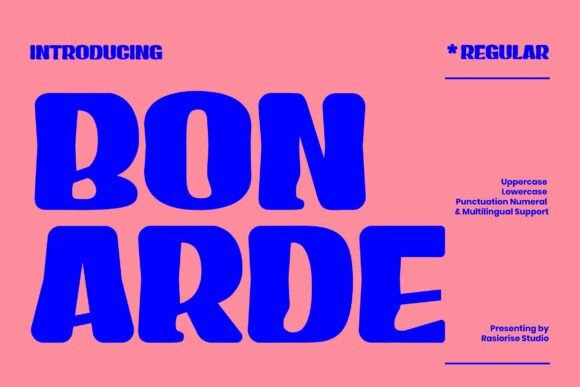
The Ultimate Display Font: A Deep Dive into Bonarde
I still remember the design project that led me to discover Bonarde Font. I was working on a vibrant poster for a music festival, and I needed a font that would grab attention and scream fun. After hours of browsing through font libraries, I stumbled upon Bonarde, and it instantly clicked. Its ultra-chunky, playful letterforms filled the space aggressively, making it perfect for high-impact headlines. In this article, I’ll share my experience with Bonarde Font, its features, and how to make the most of it in your designs.
Bonarde Font: A First Impression
Bonarde is an extremely bold, ultra-chunky display sans-serif font with a strong, playful, and graphic presence. Its massive, rounded letterforms fill space aggressively, making it ideal for vibrant posters, contemporary logos, apparel design, and any project that requires a fun, loud, and unforgettable visual statement.
What I Love About Bonarde Font
• ✨ Extremely bold and chunky: Perfect for high-impact headlines and branding.
• ✅ Multilingual support: Suitable for global projects and audiences.
• 🎉 Uppercase, lowercase, punctuation, numerals: Comprehensive character set for versatile designs.
• 🔥 Playful and graphic presence: Adds a fun and energetic vibe to any project.
Honest Review: Small Quirks and Limitations
While Bonarde Font is an excellent choice for display purposes, there are a few things to consider:
• ⚠️ Legibility at small sizes: Due to its ultra-chunky design, Bonarde may not be suitable for body text or small font sizes.
• 🤔 Limited use cases: This font is best used for headlines, titles, or emphasis, rather than extensive text.
The Story Behind Bonarde Font
Bonarde Font was designed with the intention of creating a bold, playful, and graphic display font. Its designer aimed to craft a typeface that would make a statement and add a fun, energetic vibe to any project. While the exact inspiration and design process are unknown, it’s clear that Bonarde was created with the goal of making a visual impact.
Font Name Bonarde Font
Author Rasiorise Studio
What is Bonarde Font best used for? Bonarde Font is best used for high-impact headlines, branding, posters, logos, and apparel design.
Is Bonarde Font suitable for body text? No, due to its ultra-chunky design, Bonarde Font is not suitable for body text or small font sizes.
Does Bonarde Font support multilingual characters? Yes, Bonarde Font offers multilingual support.